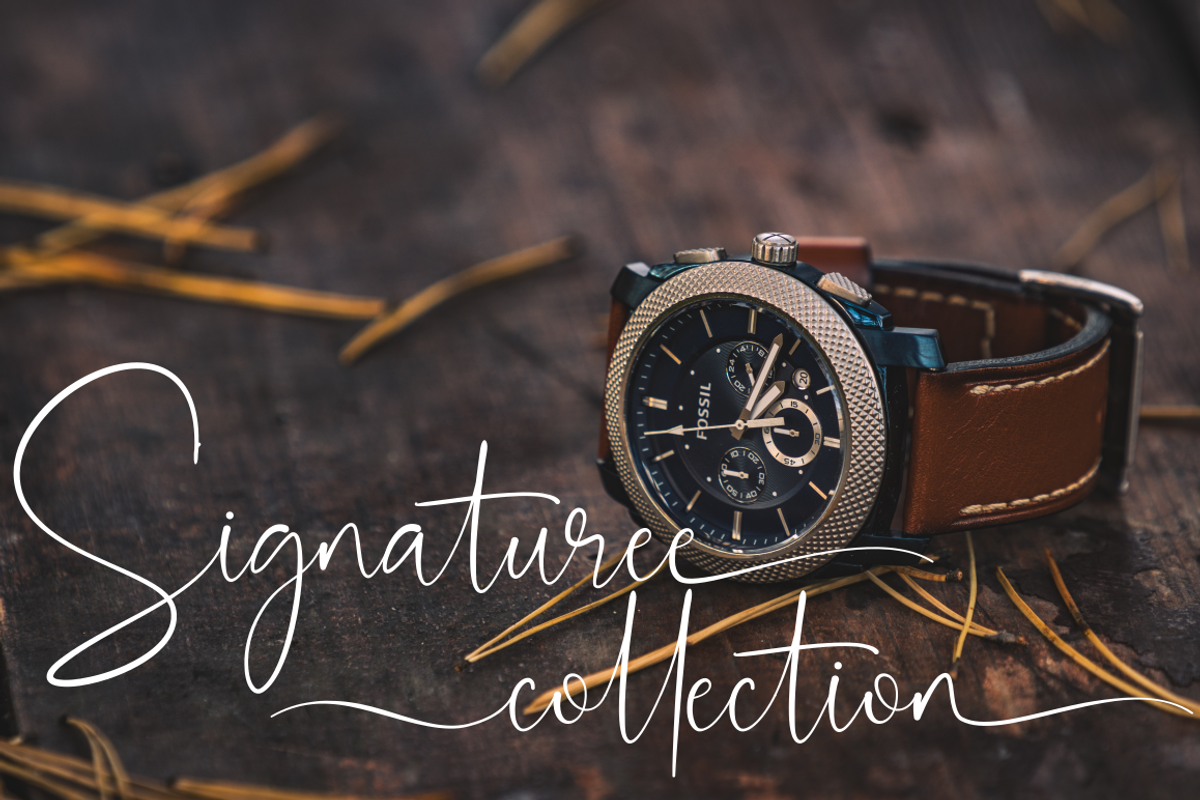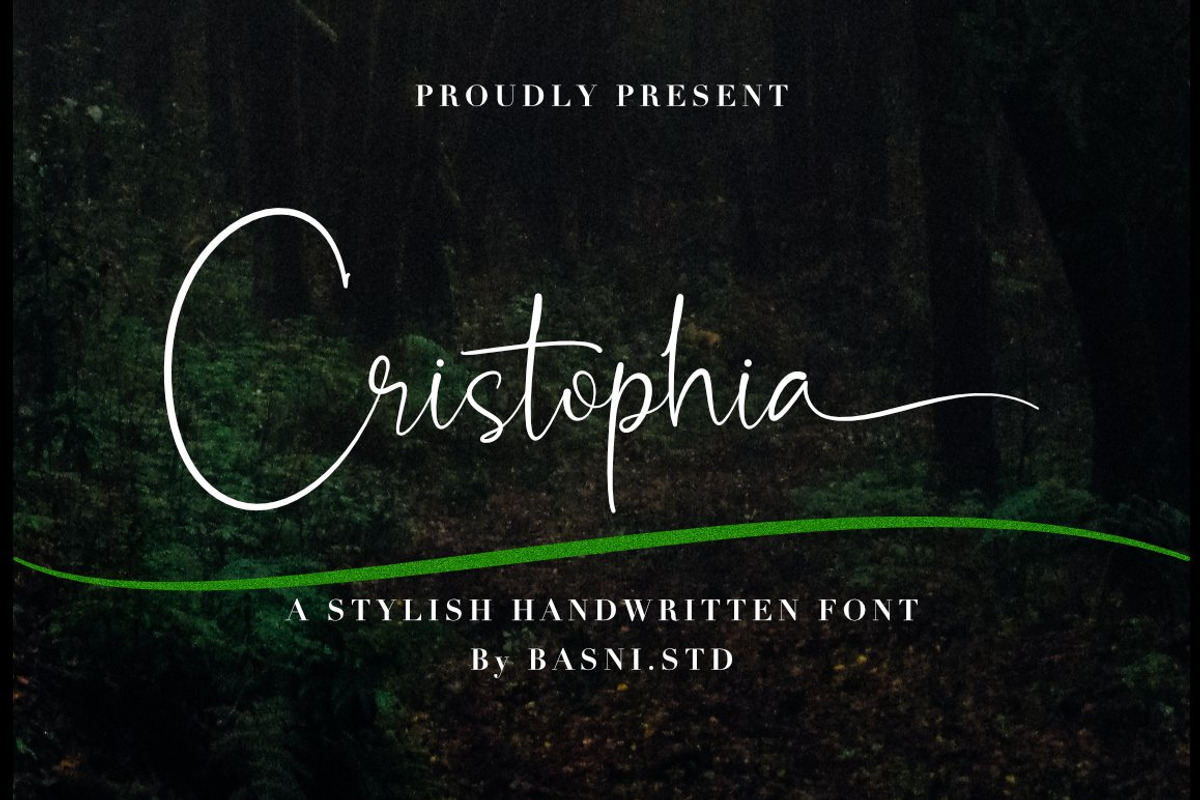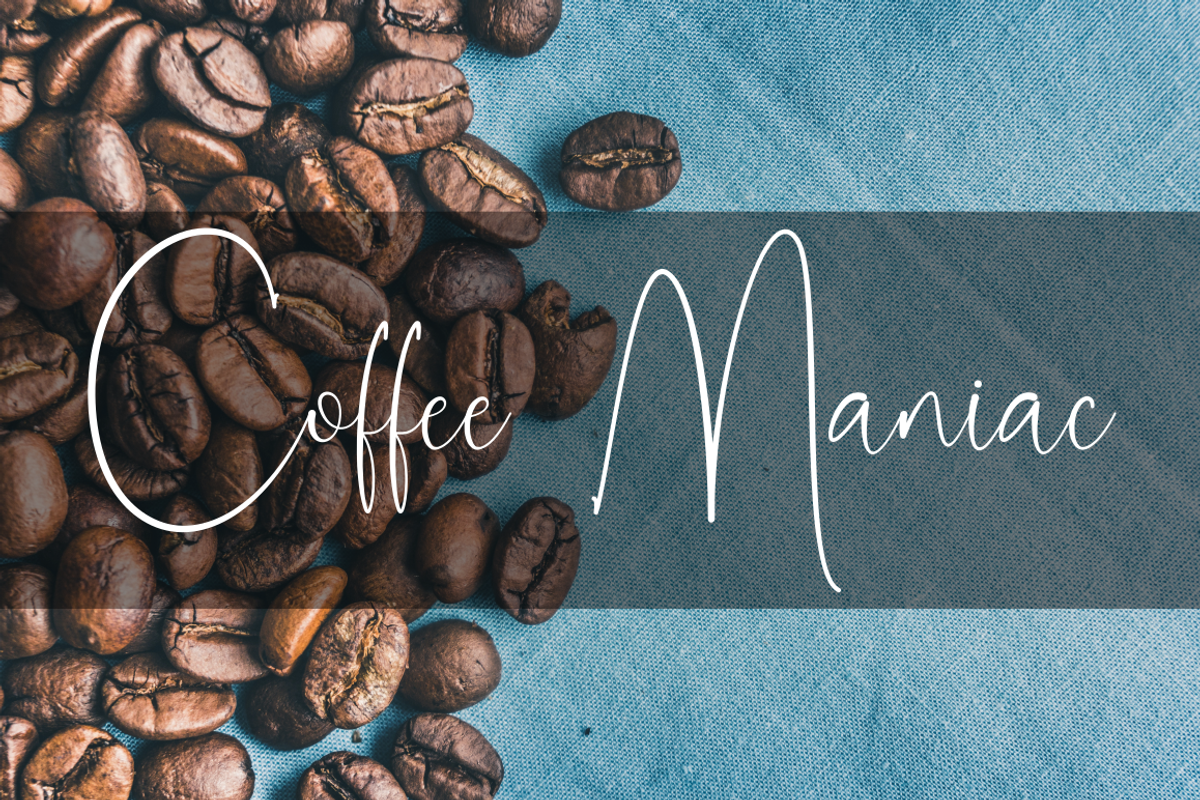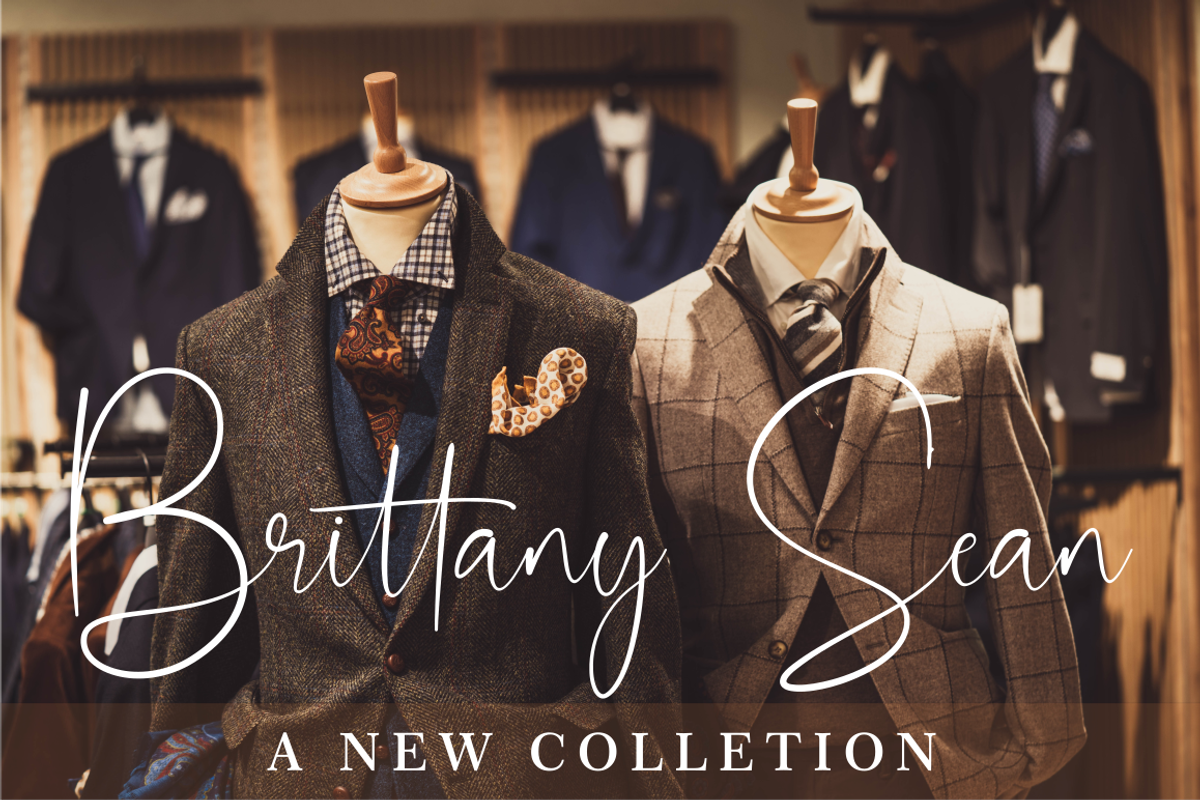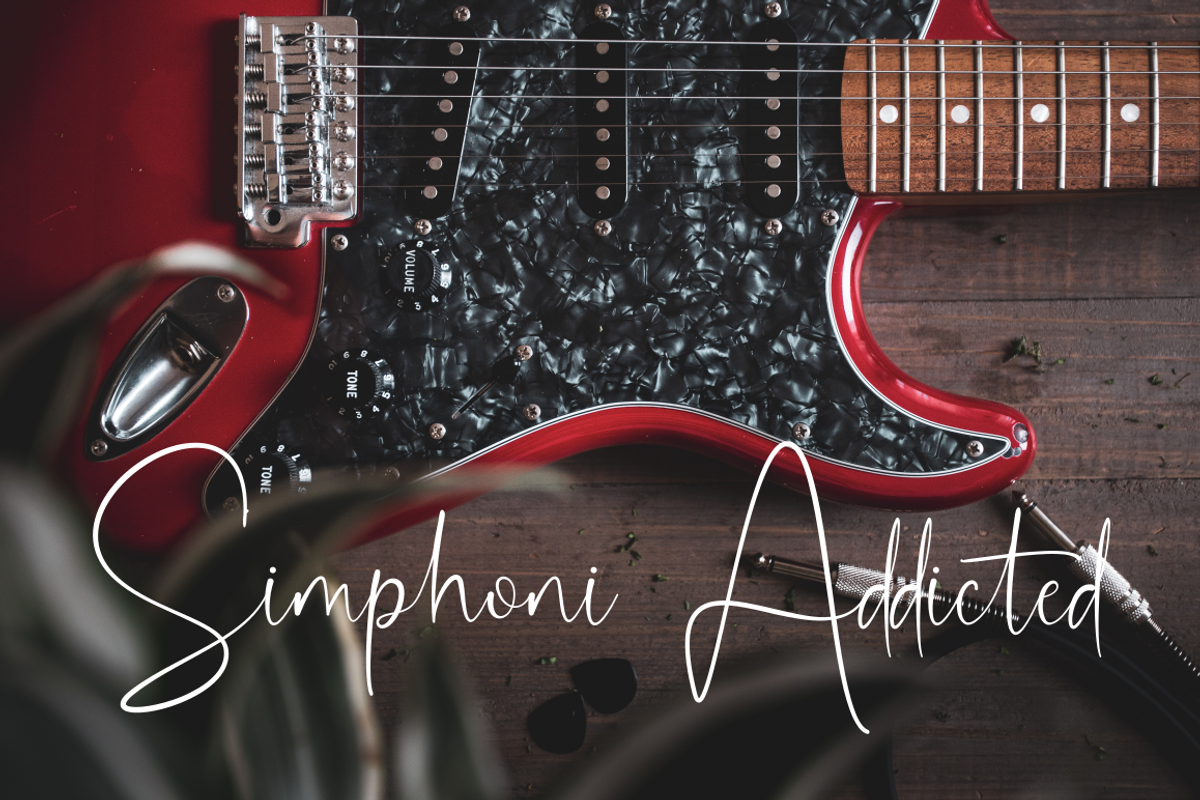
Christophia - Stylish Handwritten
Introducing Cristophia , a Stylish Handwritten font,
Cristophia is perfect for branding, websites, design invitation, and editorial designs. Includes all upper and lower case letters, multilingual support, punctuation, binding and initial and final swash. everything can be easily accessed using software that supports OpenType.